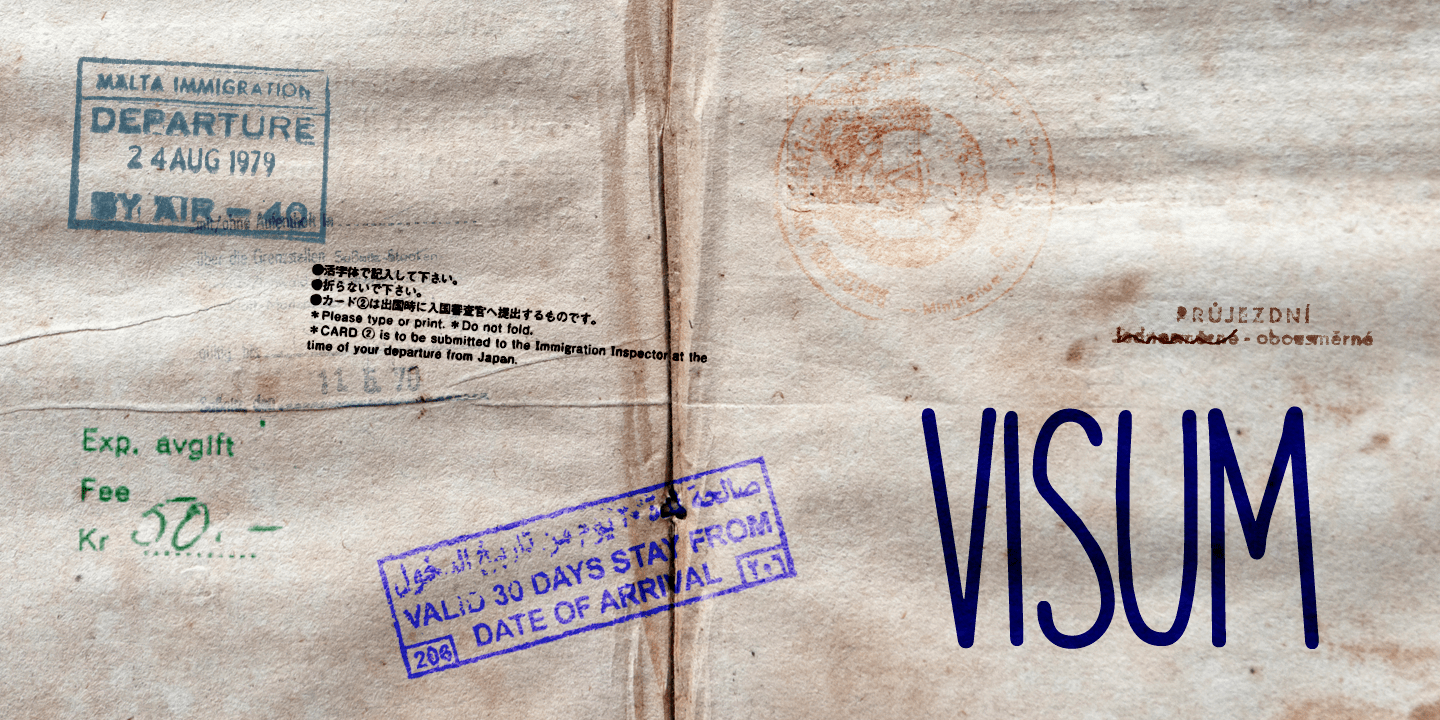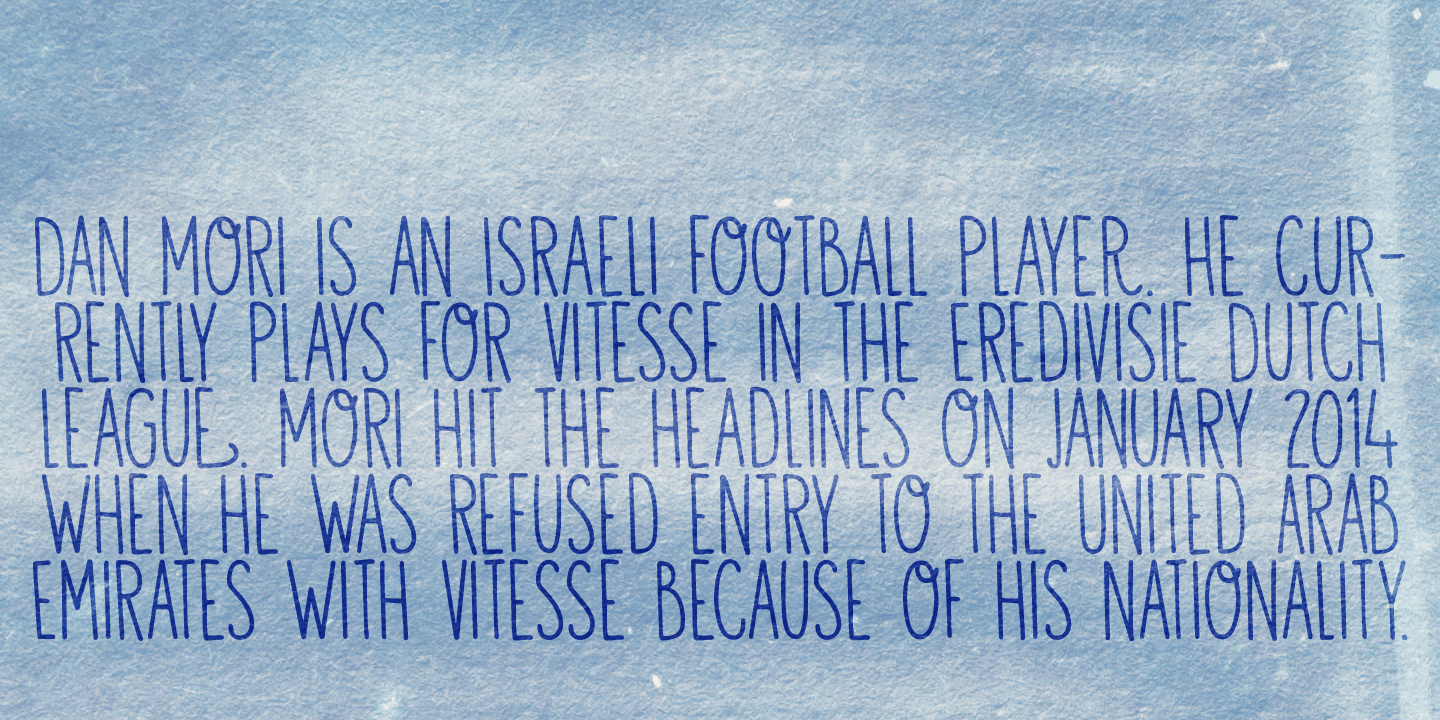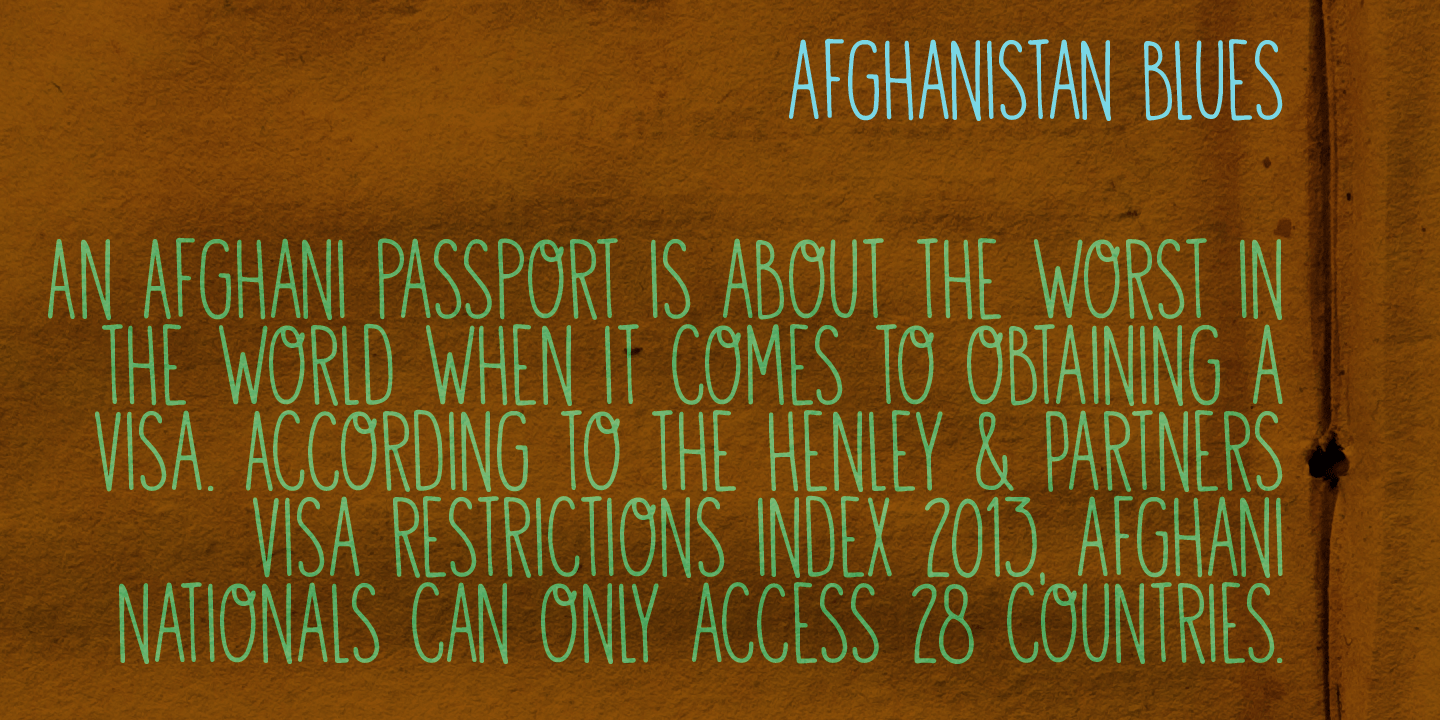
Visum
Visum means Visa in Dutch. The name was inspired by Dutch soccer club Vitesse's rather sad decision to leave Israeli player Dan Mori behind, after he was refused a UAE visa because of his nationality.
Visum font is a tall and proud all caps typeface. It comes with alternates for the lower case letters, some ligatures and an impressive language support. Of course, upper and lower case glyphs can be freely interchanged.